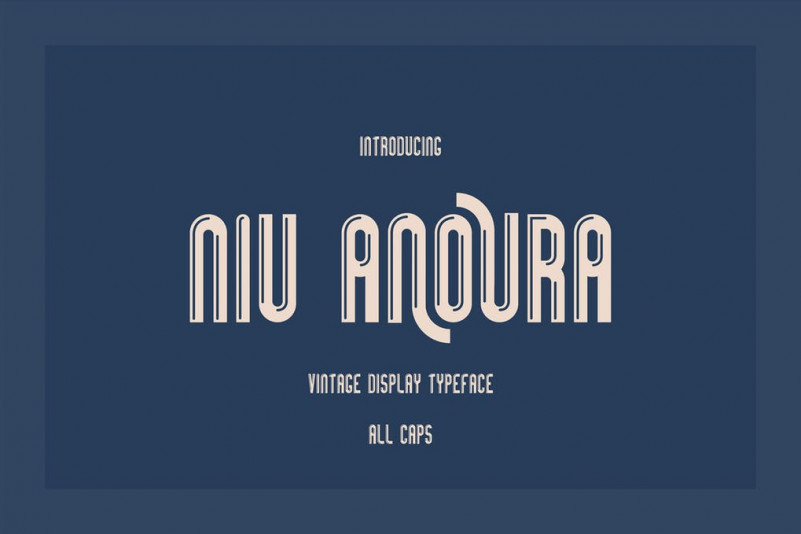
Niu Anoura Font
Niu Anoura Font is a simple and classy handwritten font, this font looks vintage, elegant, classy, readable, stylish, catchy and easy to use.
Niu Anoura Font is the best choice for your professional design projects, including watermark on photography, quotes, album cover, business card, logo, branding, magazines, social media, advertisements, product designs, and much other design projects.